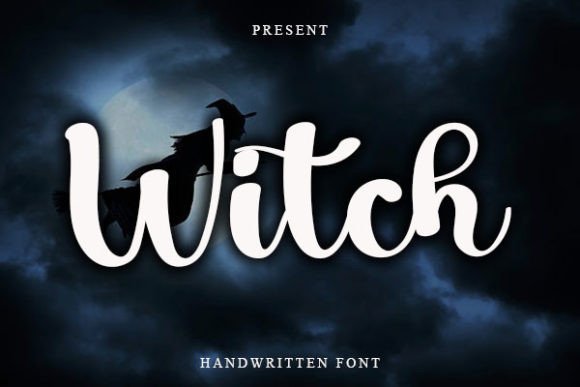
The Witch Font Download is a cute and casual handwritten script designed to add friendliness and charm to your creative projects. With its smooth handwritten strokes and approachable style, this font is ideal for both personal and professional designs. Whether you are creating invitations, posters, or digital layouts, Witch makes your work stand out with playful handwritten energy.
A Handwritten Script with Friendly Character
The Witch script font combines casual handwritten strokes with modern design balance. As a result, it feels approachable, versatile, and stylish. Furthermore, it transitions smoothly from small stationery to large display layouts, making it a flexible choice for designers.
Handwritten fonts always create a heartfelt connection. The Witch Font is perfect for wedding invitations, birthday cards, thank you notes, and seasonal greetings. Because of its friendly handwritten curves, every card feels warm and polished. In addition, it ensures your stationery projects leave a lasting impression.
Branding and Logo Design with Witch Font
Typography defines the voice of a brand. The Witch handwritten font is excellent for boutique logos, product packaging, and promotional visuals. Its casual yet stylish handwritten form gives brands a professional and approachable image. Therefore, it works especially well for lifestyle, craft, and creative businesses.
Posters, Titles, and Editorial Work
The Witch Font Download also shines in posters, magazines, banners, and book covers. It remains legible at any size while adding handwritten personality. Consequently, it is a reliable option for designers who value both creativity and readability.
In today’s digital-first era, fonts must be adaptable across platforms. The Witch typeface integrates effortlessly into Instagram posts, YouTube thumbnails, Pinterest boards, and blogs. Because of its handwritten charm, it ensures digital projects look modern, fun, and engaging.
Why Designers Choose Witch Typeface
Designers appreciate fonts that balance creativity and practicality. The Witch handwritten script keeps its casual, cute style while being easy to read. This makes it a dependable choice for hobbyists and professionals. Moreover, its timeless handwritten appeal ensures it remains trendy for years to come.